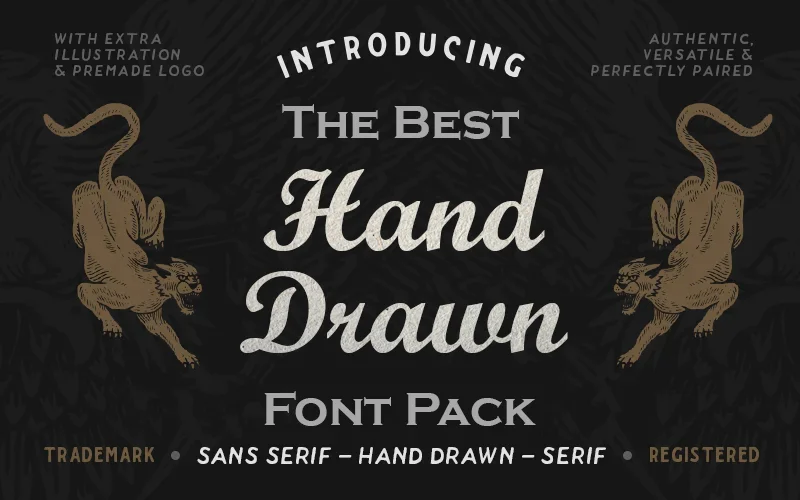
Bring handcrafted personality to your designs with Blackport — a polished collection of hand-drawn sans and serif typefaces plus editable artwork and logo templates. Perfect for posters, branding, vintage projects, and any creative work that needs a warm, organic feel.
What’s inside
- 5 hand-drawn fonts
- Blackport Hand-Drawn
- Blackport Sans Regular
- Blackport Serif Regular
- Blackport Sans Stamp
- Blackport Serif Stamp
- Bonus artwork
- Fully customizable fonts, illustrations, and logos
- Ideal for logos, vintage designs, posters, branding, digital assets, and more